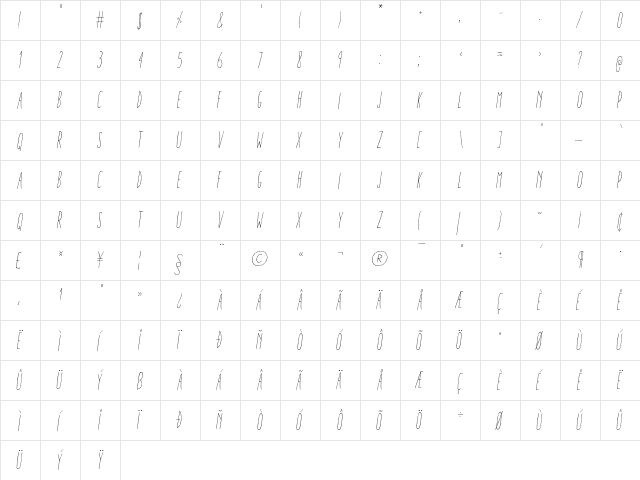
Aracne Ultra Condensed Light Italic Ultra-condensed Light Italic
Ultra-condensed Light Italic · Julia Martinez Diana, Antipixel. Julia Martinez Diana, Antipixel ·
Foundry Julia Martinez Diana, Antipixel.
DesignerJulia Martinez Diana, Antipixel
Design Context for Aracne Ultra Condensed Light Italic Typeface
Aracne Ultra Condensed Light Italic is a composed and adaptable typeface that performs quietly and consistently across a wide range of design contexts. The dynamic lean of this cut emphasises speed and emphasis in any layout. The delicate stroke weight brings airiness and refinement to layouts. Its narrow stance lets it pack a punch even in space-constrained designs.
Pro Tip: Try Aracne Ultra Condensed Light Italic for annotation and caption copy alongside an upright companion — the contrast in angle creates a dynamic but ordered typographic system.